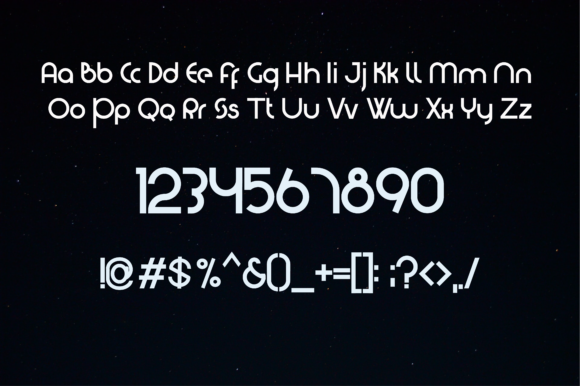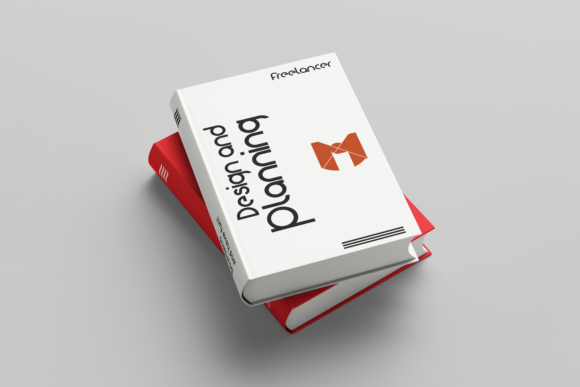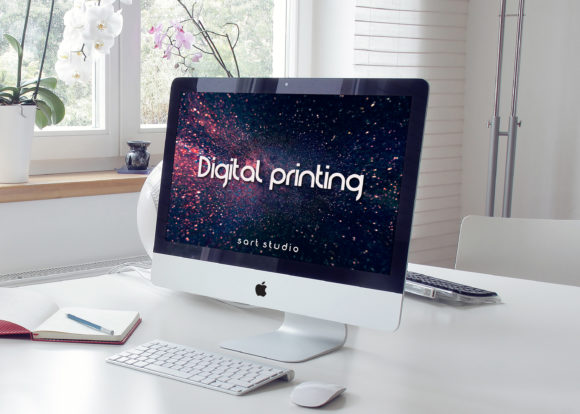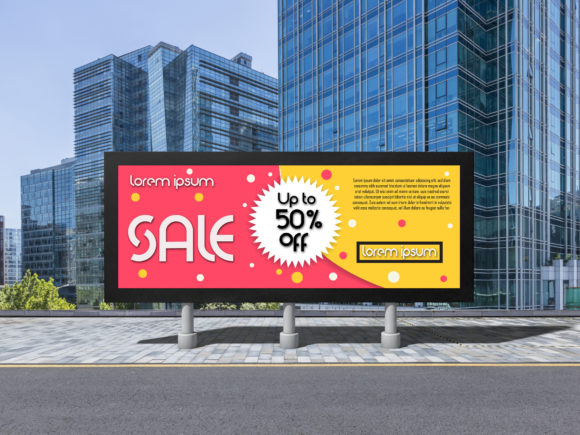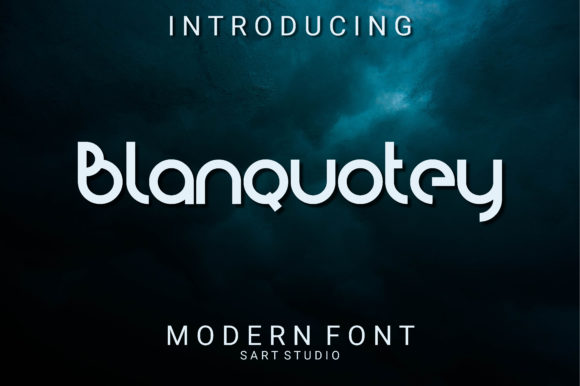
Discover the Elegance of Blanquotey Font: A Modern Design Essential
In the vast universe of typography, where fonts are the building blocks of design, Blanquotey emerges as a beacon of modernity and simplicity. This font, with its clean lines and contemporary appeal, has been making waves among designers and crafters alike. Whether you’re working on a web project, a print design, or even crafting moving images, Blanquotey promises to elevate your work with its spectacular appearance.
The Essence of Blanquotey Font
Blanquotey is more than just a font; it’s a statement of modern design. Its simplicity is not just a stylistic choice but a bold statement that speaks volumes about the power of minimalism in design. The font’s clean and uncluttered appearance makes it incredibly versatile, suitable for a wide range of applications. From digital platforms to print media, Blanquotey maintains its elegance and readability, ensuring your message is conveyed with clarity and style.
One of the standout features of Blanquotey is its versatility. This font is not limited by the medium; it thrives in various environments:
• Web Design: Blanquotey’s modern look makes it perfect for websites and digital applications. Its clean lines ensure that your website stands out in a crowded digital landscape, providing a seamless user experience.
• Print Design: For brochures, posters, and business cards, Blanquotey brings a touch of sophistication. Its simplicity translates well to print, making your designs look sharp and professional.
• Moving Images: In the realm of video content, Blanquotey can be used for titles, subtitles, and graphics, adding a modern flair to your visual storytelling.
Why Designers and Crafters Love Blanquotey
Designers and crafters are always on the lookout for fonts that can help them create visually appealing and effective designs. Blanquotey ticks all the right boxes:
• Easy to Read: Despite its modernity, Blanquotey remains highly legible, making it suitable for both headings and body text.
• Highly Customizable: The font’s simplicity allows for easy customization. You can adjust weights, sizes, and colors to fit your design needs.
• Cross-Platform Compatibility: Blanquotey performs well across different devices and platforms, ensuring consistency in your design.
How to Use Blanquotey Effectively in Your Designs
To make the most of Blanquotey, consider the following tips:
• Mix and Match: Combine Blanquotey with other fonts to create visual interest. Its simplicity pairs well with more decorative fonts.
• Play with Sizes: Use different sizes to create a hierarchy of information, making your design more dynamic.
• Experiment with Colors: While Blanquotey looks great in black and white, experimenting with colors can add an extra layer of personality to your design.
Blanquotey font is a modern design essential that brings simplicity, elegance, and versatility to the table. Whether you’re a designer working on a professional project or a crafter looking for the perfect font for your DIY endeavor, Blanquotey is sure to impress. Its ability to shine in various mediums, from web and print to moving images, makes it a valuable addition to any design toolkit. Embrace the modernity and simplicity of Blanquotey, and watch your designs transform into spectacular visual experiences.